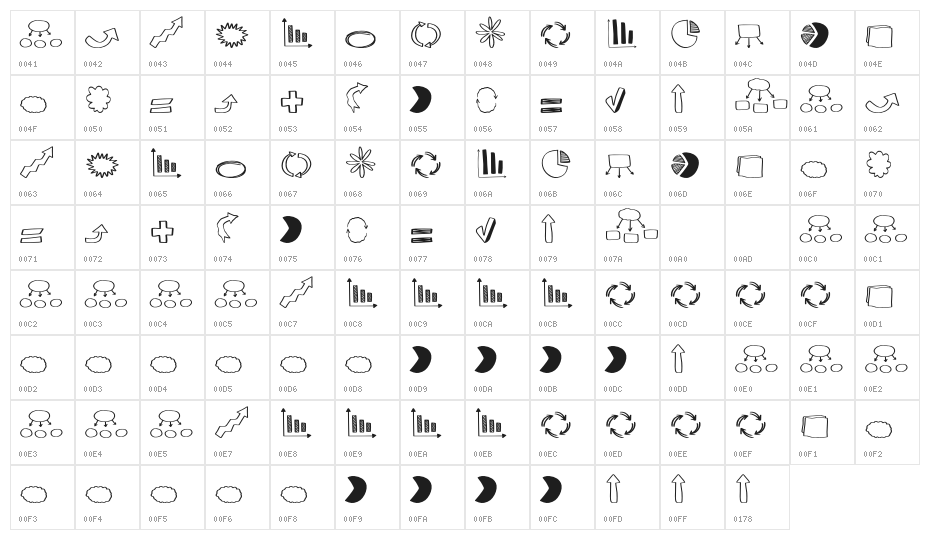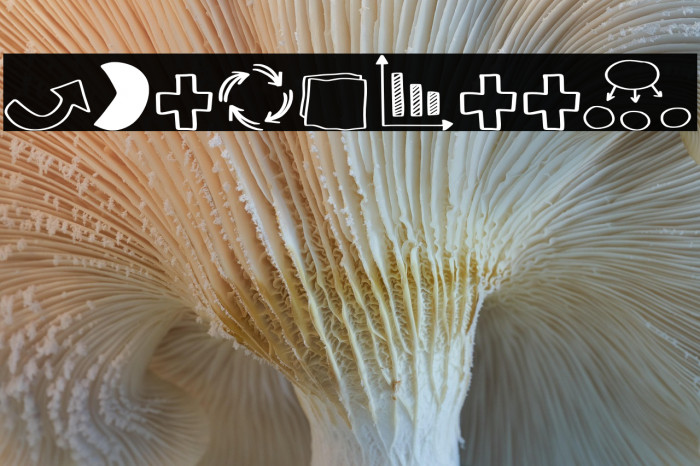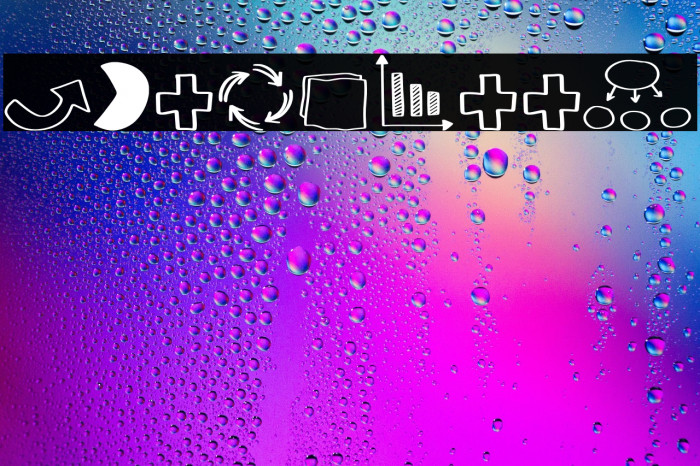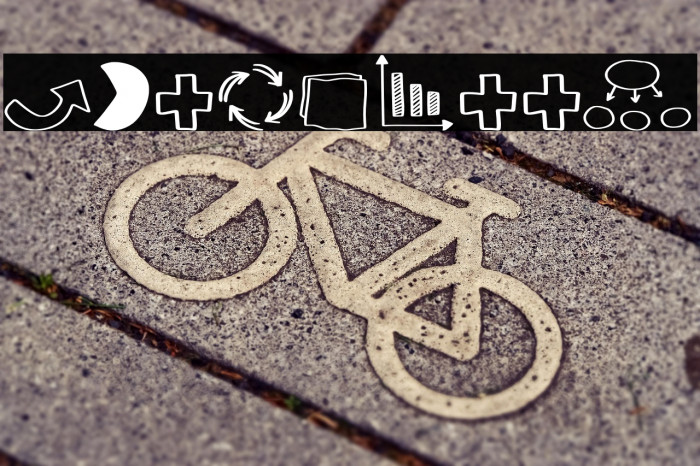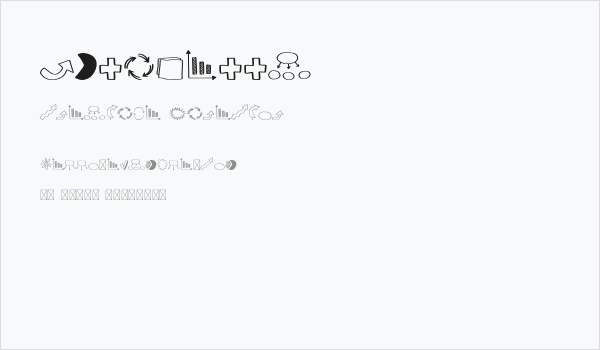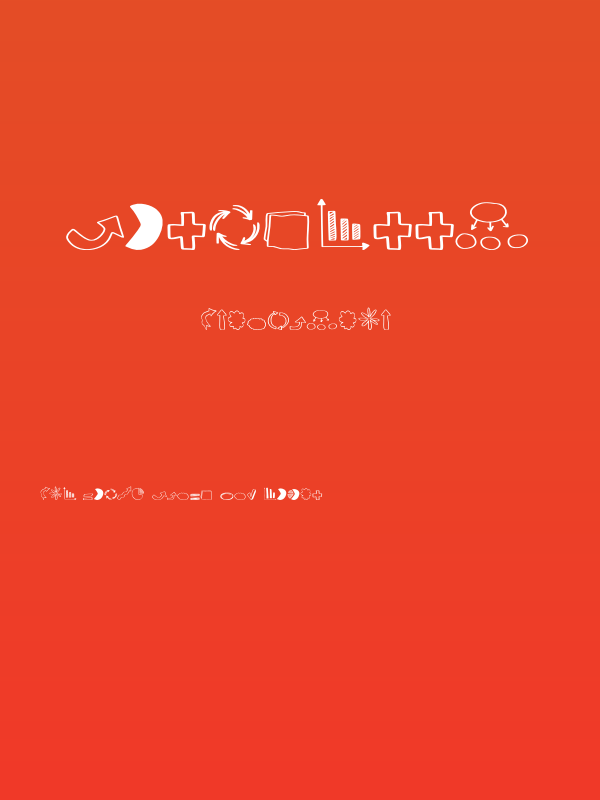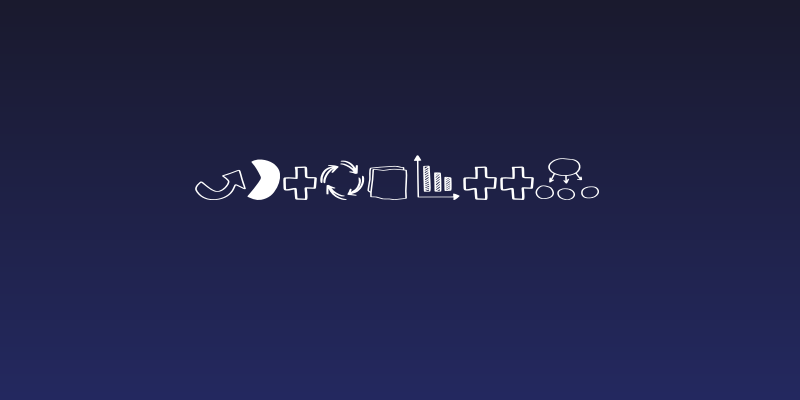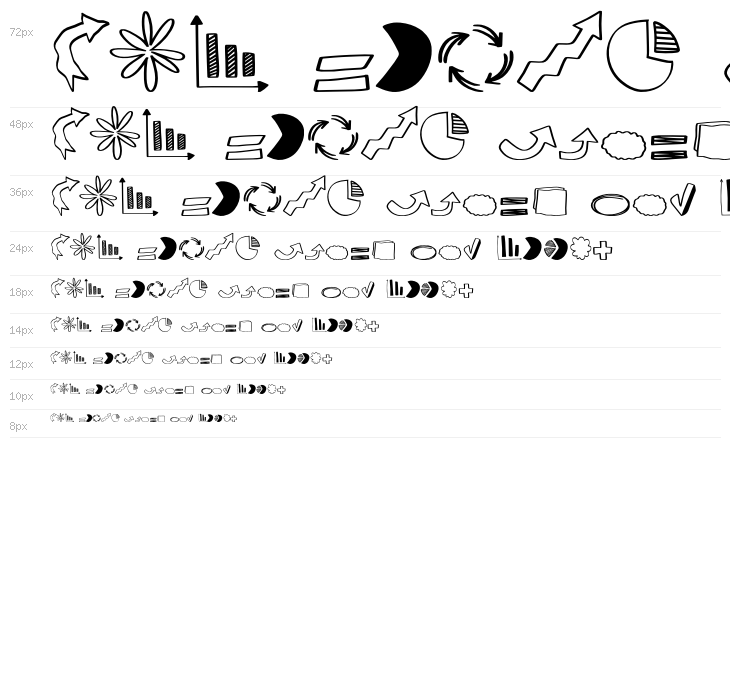
Businessa Font
Businessa Description
A playful, hand-drawn icon set featuring business-related symbols such as charts, arrows, diagrams, and flowcharts, with a sketchy, informal style and variable line thickness.
| Overall Style | Decorative, Playful, Informal |
| Use Case | Icons, Visual aids, Presentation graphics |
| Proposed Projects | Business presentations, infographics, educational materials, creative reports, startup pitch decks. |